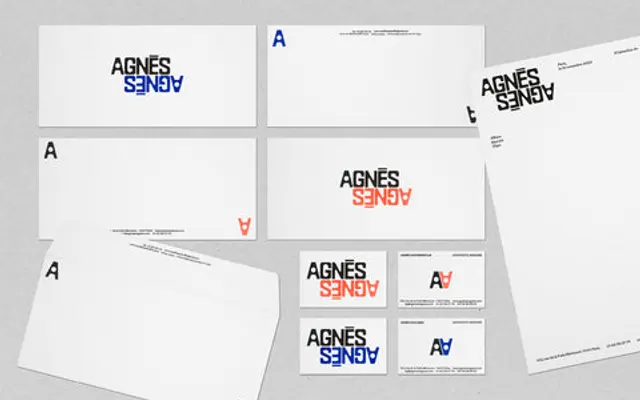
Baste
Lift Type · 2023
A two-family display typeface drawn from the vernacular visual culture of southern France, toggling between coastal softness and urban rawness.
Baste comes in two distinct versions: A and B, each evoking a different facet of Marseille and the surrounding region. Version A leans toward the gentler rhythms of the seaside; Version B pulls toward the harder, more abrasive character of a sun-scorched city centre. Both share three weights (Regular, Medium, Black) and a glyph set of 552 characters with OpenType features including stylistic sets, circled numbers and arrows.